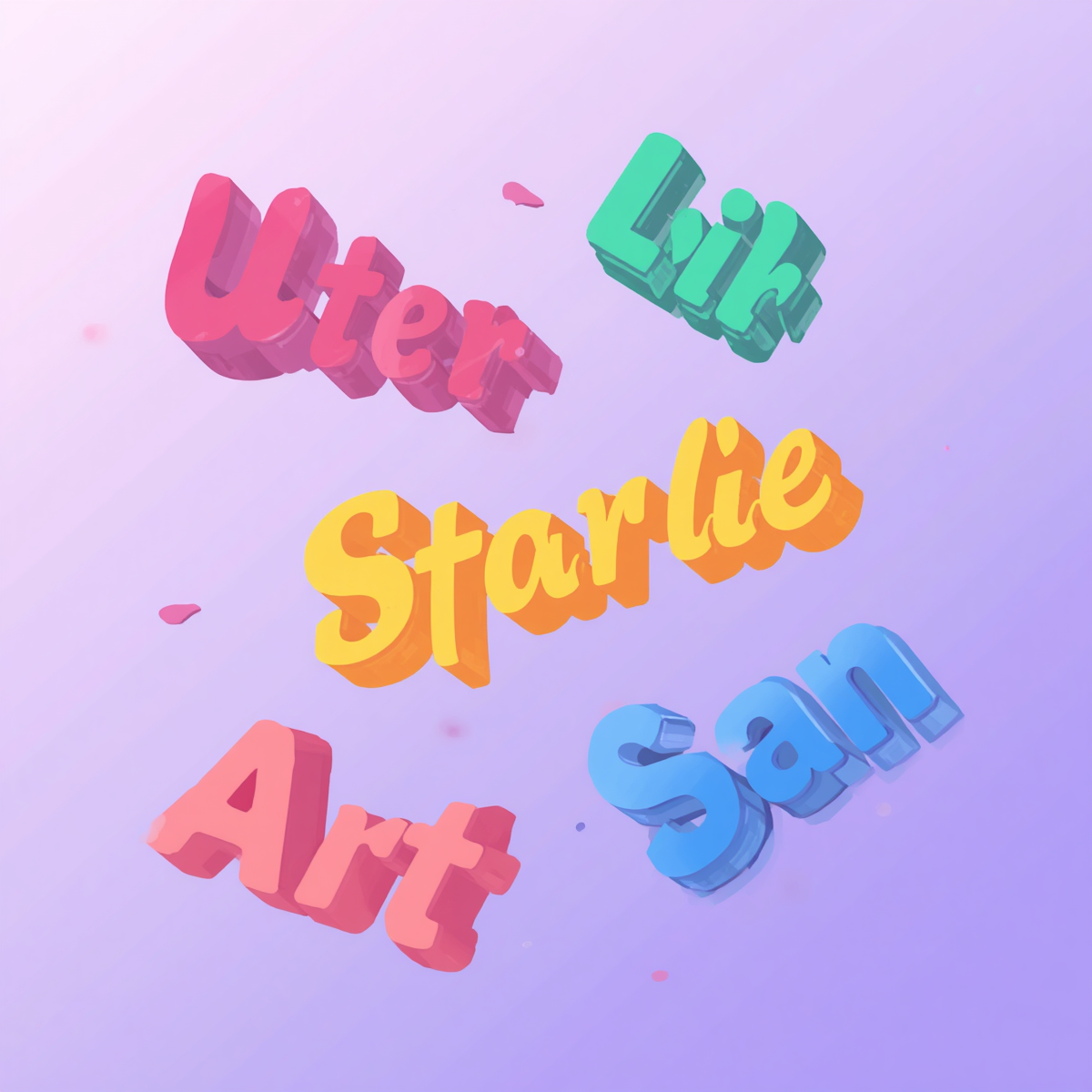
Cool Font Generator: Turn Any Text Into 300+ Stylish Fonts Instantly
Looking for a cool font generator that actually works without downloading an app or signing up for anything? FontyHub gives you instant access to over 300 stylish fonts you can copy and paste straight into Instagram bios, TikTok captions, WhatsApp statuses, Facebook posts, and anywhere else you want your text to stand out.
In this guide, we’ll walk through what a cool font generator does, how to use FontyHub’s generator in three simple steps, and which font styles work best for different platforms and moods.
What Is a Cool Font Generator?
A cool font generator is a free online tool that converts plain text into stylized versions using special Unicode characters or web fonts, so you can paste unique-looking text into places that normally only support basic fonts — like social media bios, comments, and usernames.
Instead of installing fonts on your device, a cool font generator does the styling for you instantly in the browser. You type your text once, and the tool displays it in dozens (or hundreds) of different styles at the same time, so you can pick whichever one matches your vibe.
How to Use FontyHub’s Cool Font Generator
Using FontyHub takes less than 10 seconds:
- Type your text into the input box at the top of the page.
- Browse the categories — Cursive, Bold, Fancy, Sans-Serif, Monospace, Serif, or Display — using the tabs at the bottom.
- Click any font card to instantly copy that styled version of your text to your clipboard.
- Paste it anywhere — Instagram, TikTok, Facebook, WhatsApp, Discord, or Twitter.
Font Styles Available
FontyHub’s cool font generator organizes its 300+ fonts into clear categories so you’re not scrolling endlessly to find the right look:
- Cursive/Script — elegant, handwritten-style fonts like Pacifico and Dancing Script, great for a soft, personal feel.
- Display — bold, attention-grabbing fonts like Bebas Neue and Anton, ideal for headlines and usernames. Perfect for our Stylish Name Generator.
- Fancy — playful, expressive fonts like Lobster and Permanent Marker.
- Serif — classic, editorial-style fonts like Playfair Display and Merriweather.
- Sans-Serif — clean, modern fonts like Montserrat and Poppins.
- Monospace — coder-inspired fonts like Fira Code and JetBrains Mono, great for a techy aesthetic.
Best Fonts for Instagram Bios
For Instagram bios, cursive and fancy fonts tend to perform best because they add personality without hurting readability at small sizes. Scripts like Dancing Script or Satisfy — both available on Google Fonts — give a soft, aesthetic look, while a display font like Righteous can make a username or brand name pop at the top of your profile. Once you’ve picked a font style, head over to our Bio Generator Tool to build the rest of your bio.
Best Fonts for TikTok Captions
TikTok captions benefit from bold, high-contrast fonts that stay readable even when compressed by the app’s video player. Display fonts such as Bebas Neue or Anton, and fancy fonts like Bangers, are popular choices for TikTok because they stay legible even in a short video overlay. Pair your styled caption with trending tags from our Hashtag Generator to boost reach.
Why Use a Cool Font Generator Instead of Default Text?
Plain default text blends in. A cool font generator helps your profile, post, or message stand out in a feed full of identical system fonts. It’s especially useful for:
- Making your username or bio more memorable
- Giving captions and comments a distinct visual identity
- Branding a business or creator page consistently across platforms
- Adding personality to WhatsApp statuses and Discord names
Frequently Asked Questions
Is FontyHub’s cool font generator free to use? Yes, it’s completely free with no signup required.
Will these fonts work on Instagram and TikTok? Yes — once copied, the styled text pastes as regular Unicode-compatible text, so it displays correctly across Instagram, TikTok, Facebook, and WhatsApp.
Can I use these fonts for a business name or logo text? Yes, though for official logos we’d recommend pairing it with proper brand design software for print use.